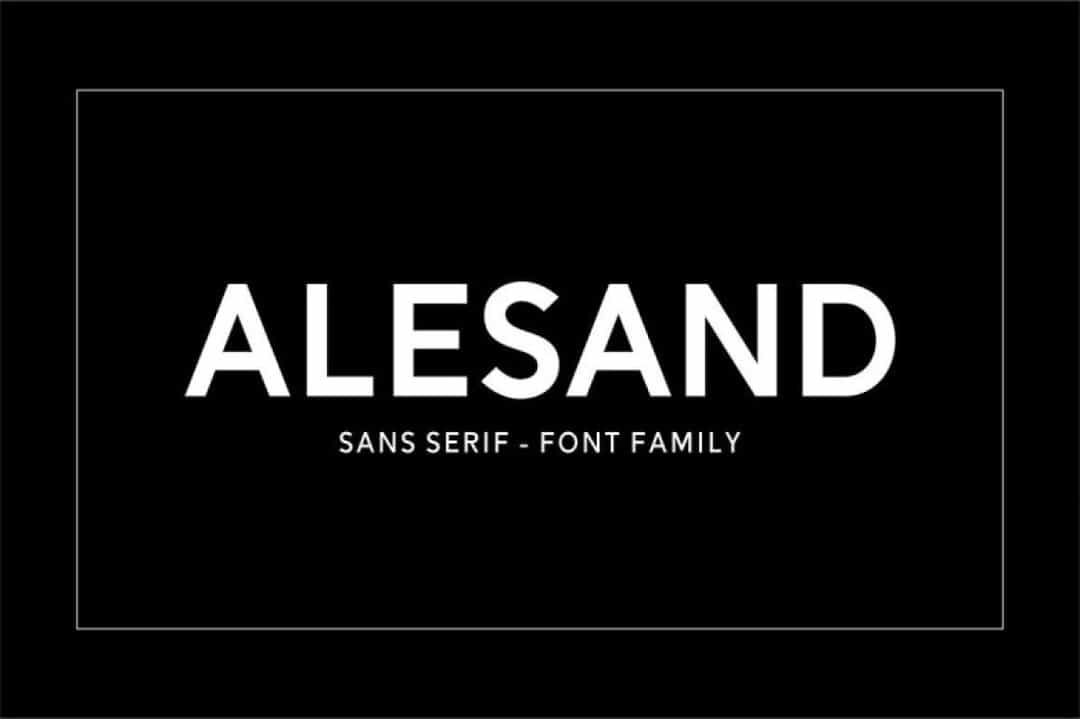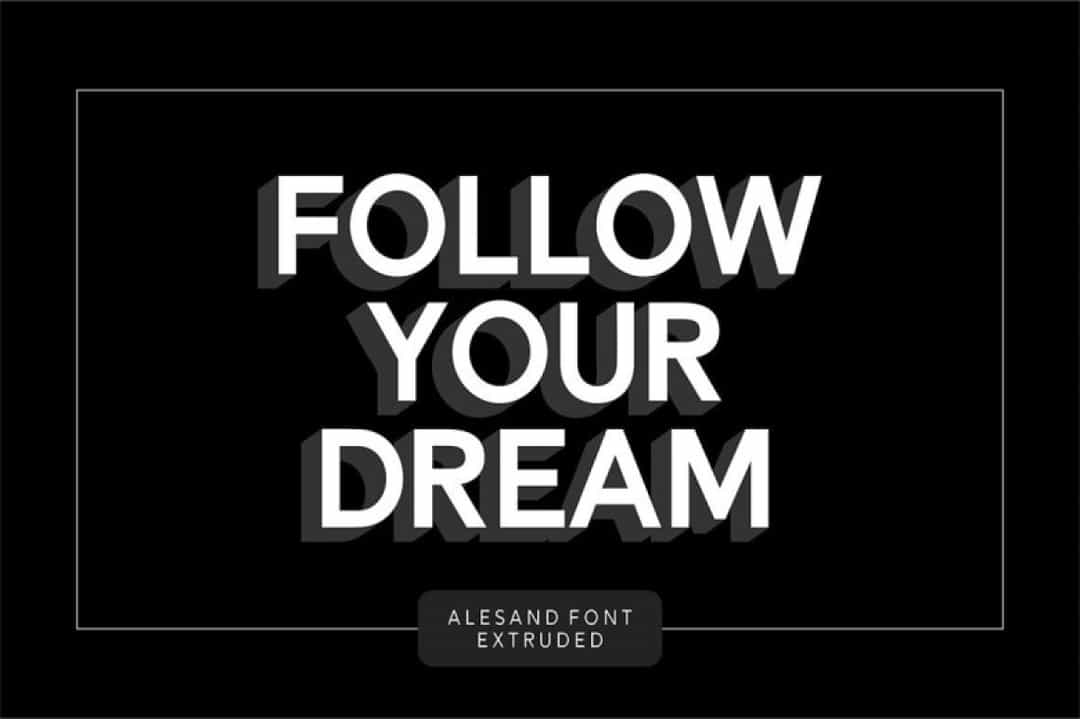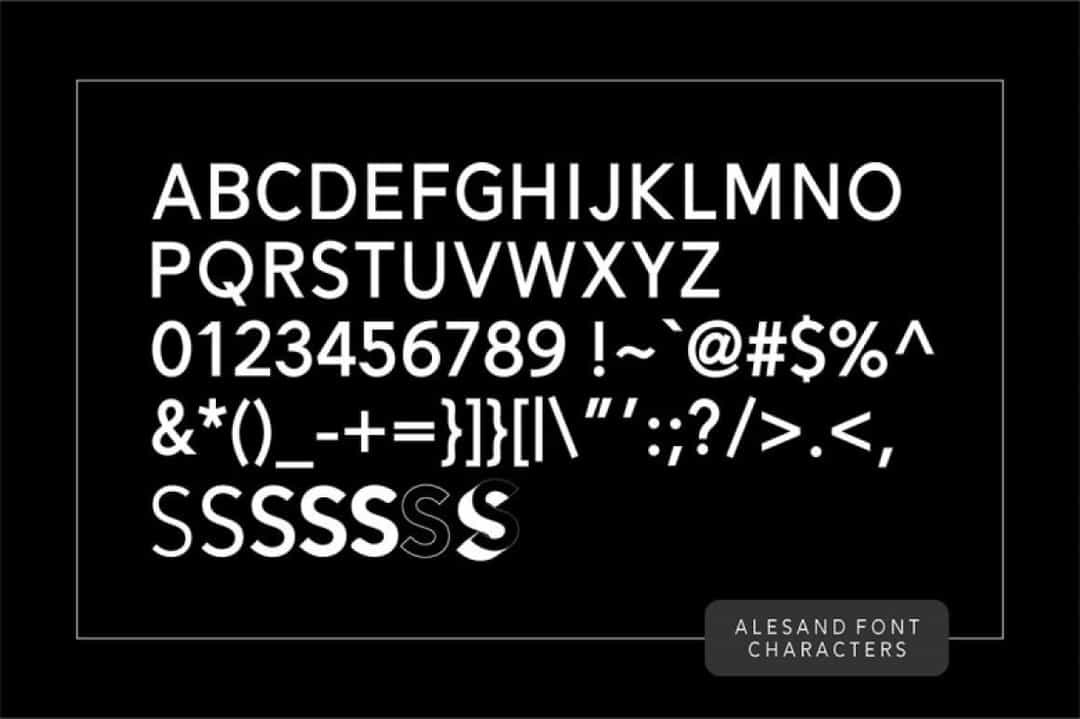
Alesand Font
Discover Alesand Font, part of the   Sans Serif collection—a versatile and unique font perfect for adding a personal touch to your projects. Download it for free and enjoy crafting designs with style, from invitations to social media posts. This font is available exclusively for personal use, giving you the freedom to create without limits. Unlock your creativity with Alesand Font today!
Alesandis is a modern, balanced and flexible sans serif font family that has become very popular and widely used nowadays. With extrude and outline styles making covering fonts simple: create an “Extra Bold” layer and duplicate it; after that change the style of the duplicated layer to “Outline Extrude”. Your font will then automatically offset itself!